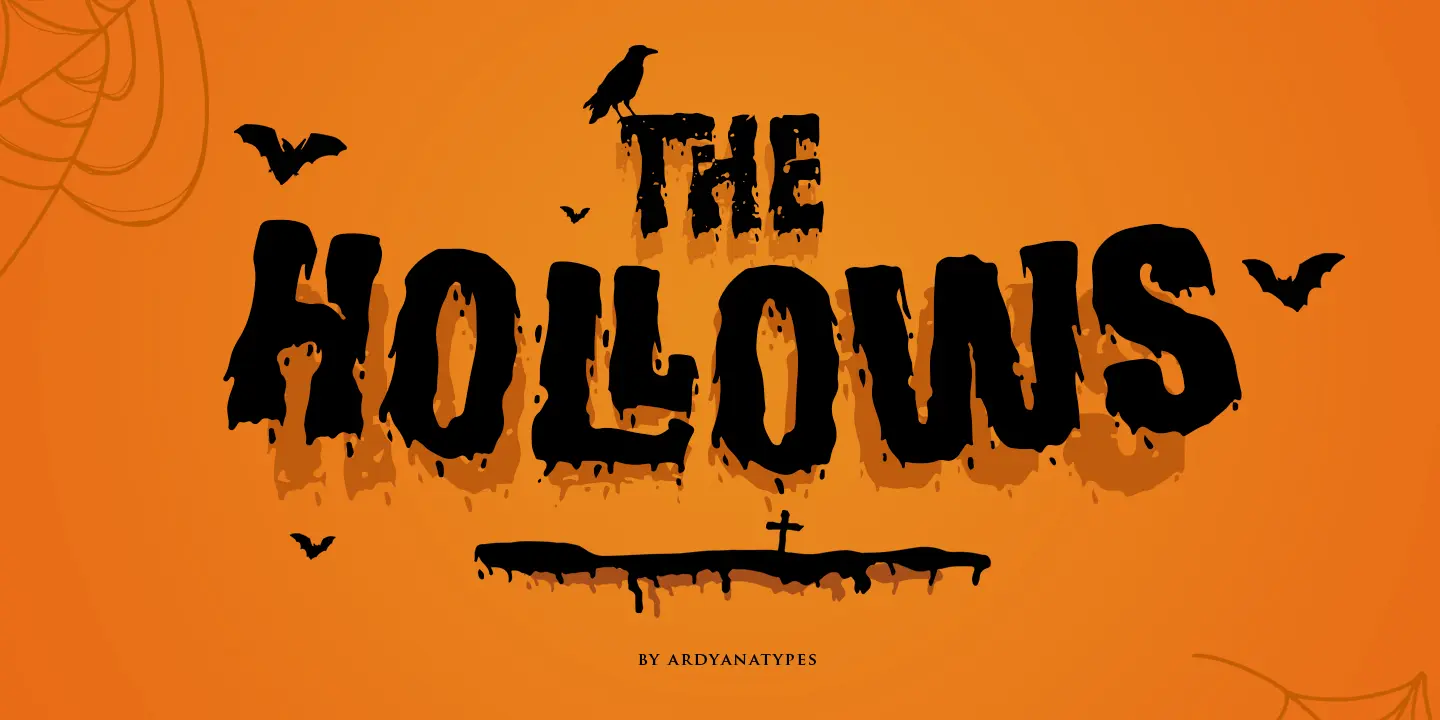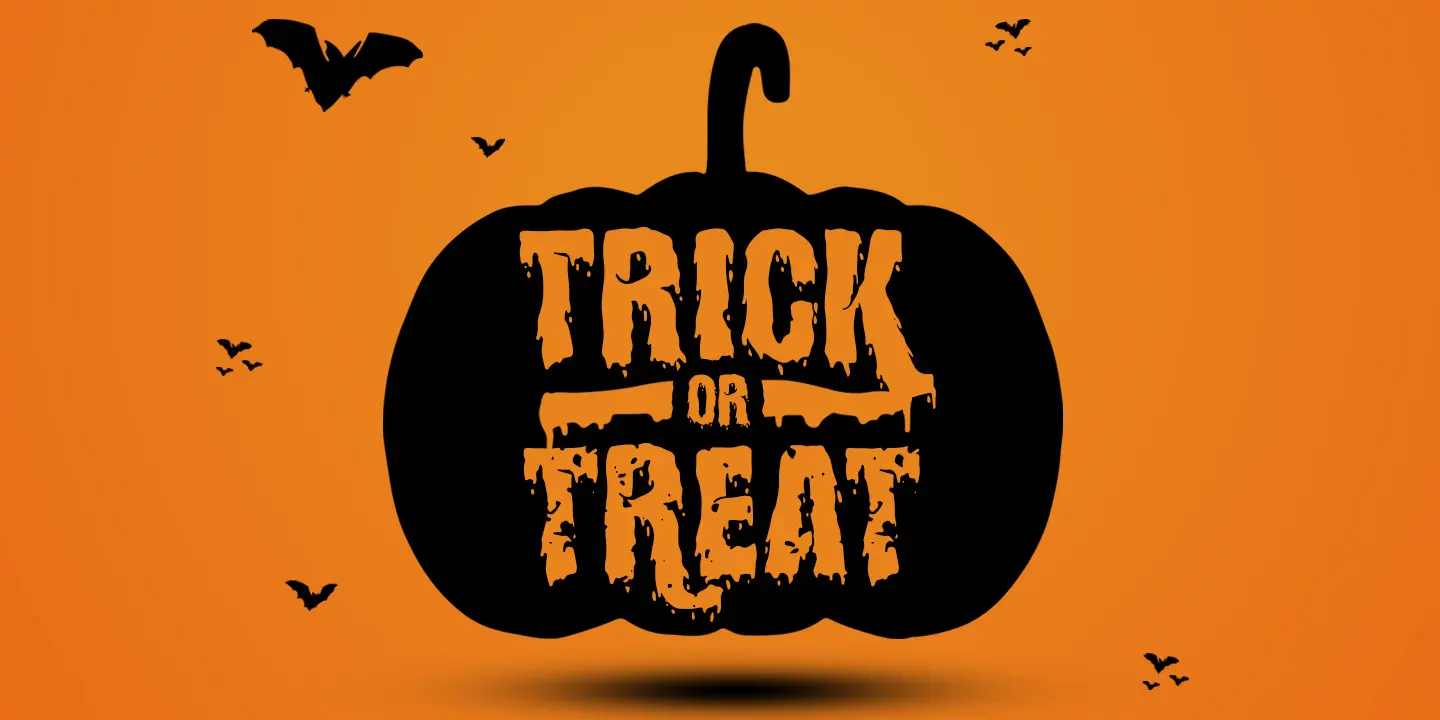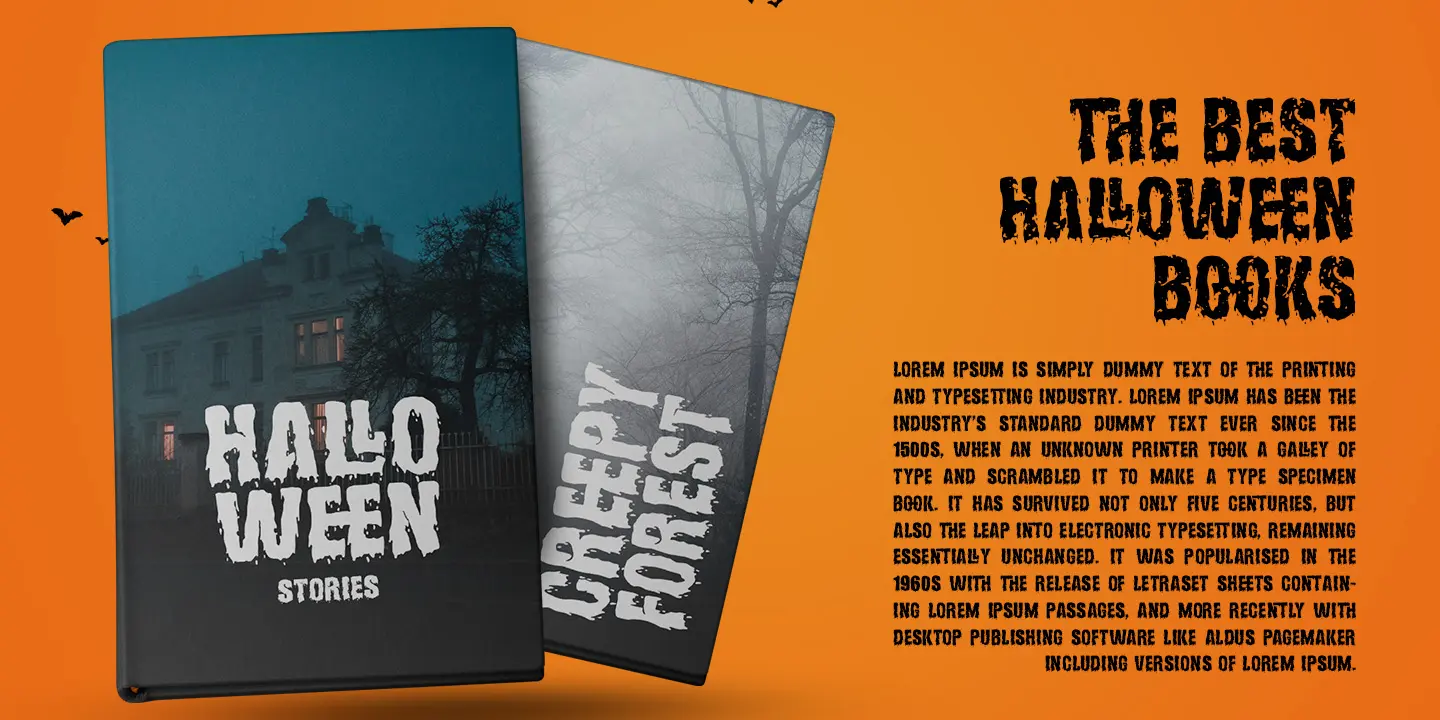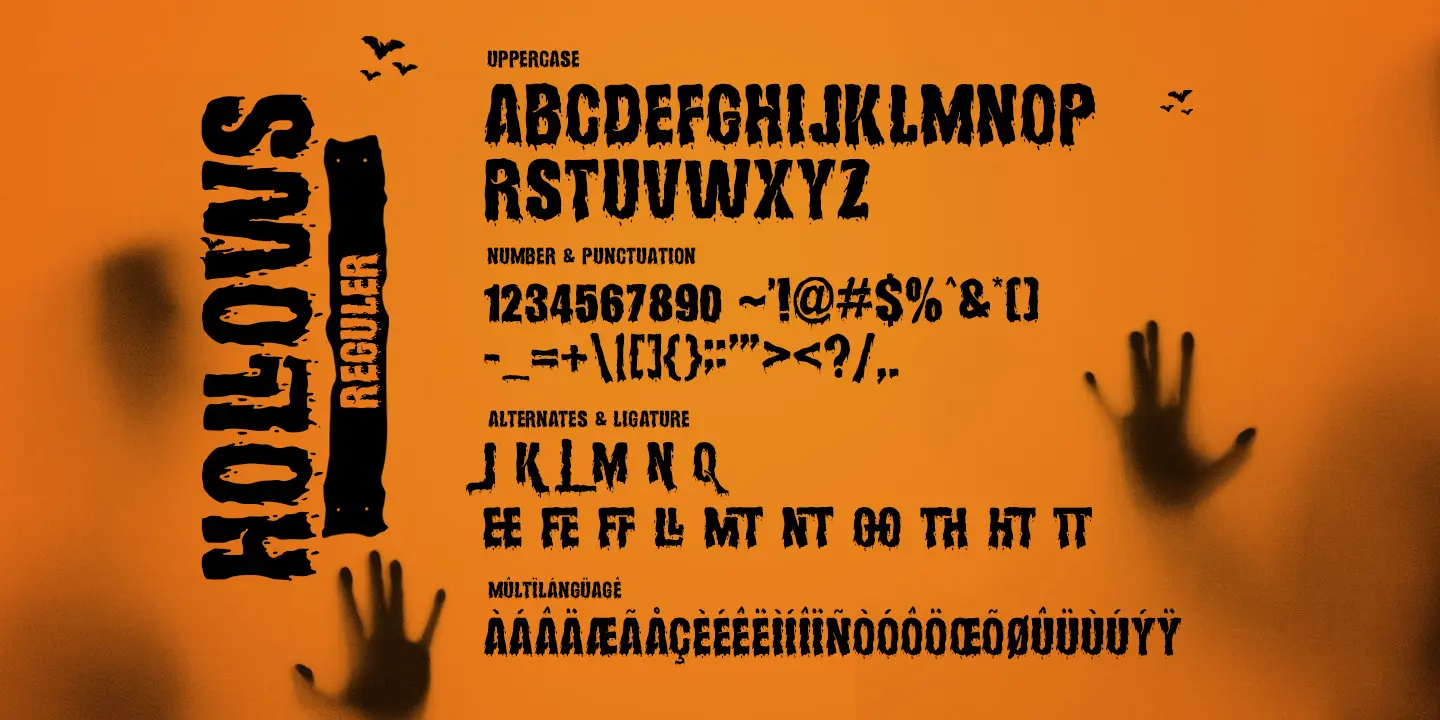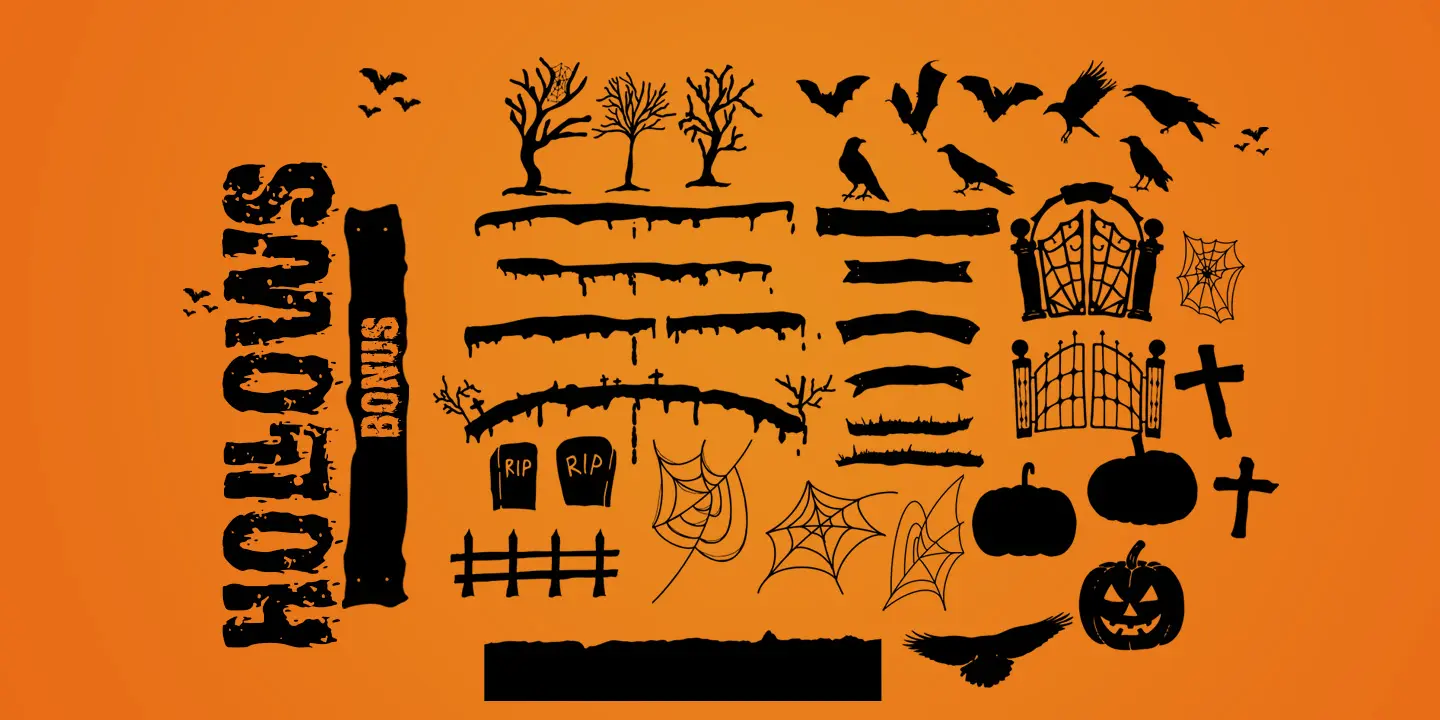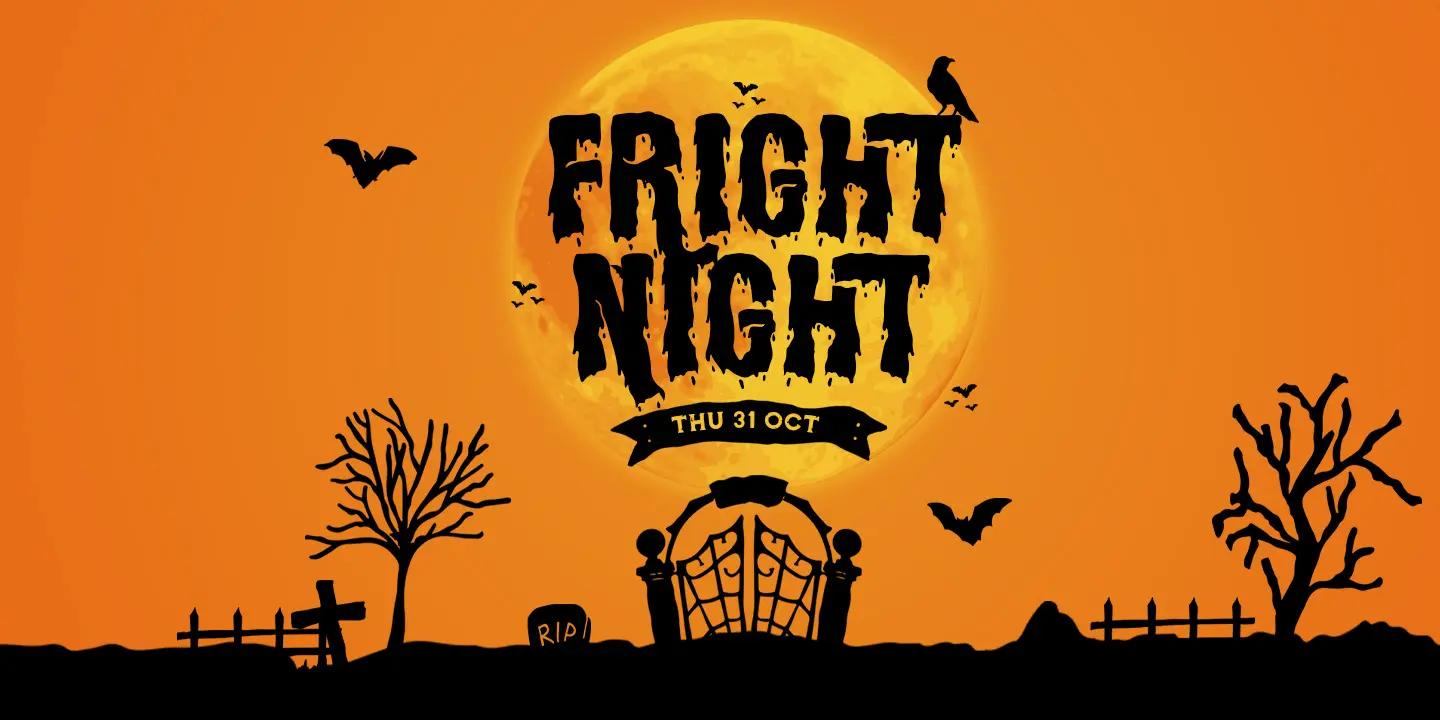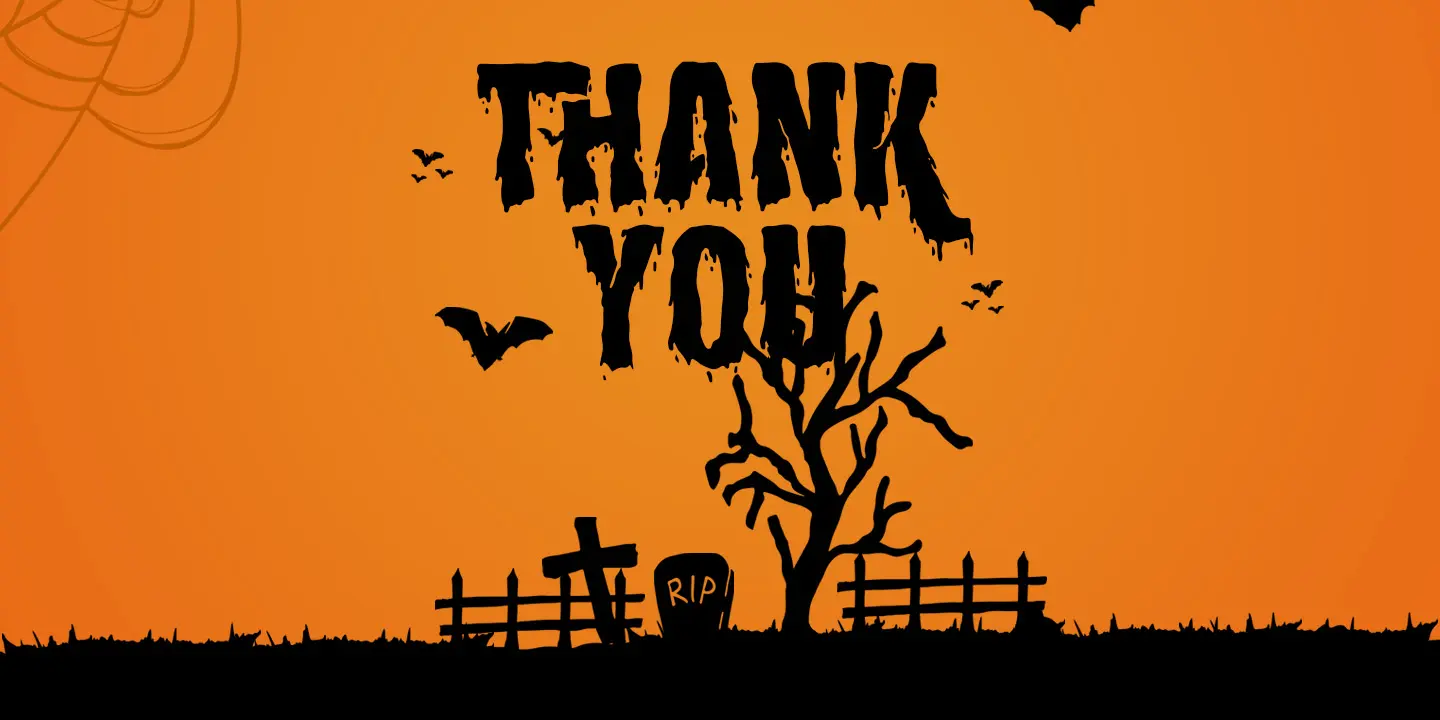
Hollows
2 Styles
The Hollows is a Display font created with a horror and thick impression. Hollows has two different styles, Regular and Rude, each style has several alternatives and Ligature which makes it look more attractive and very easy to use. Hollows is also equipped with mutlilanguage for use in various languages. Hollows gives a horror and scary atmosphere to make your Halloween theme more attractive, and is perfect for use on book covers, movie titles, logos and branding, advertisements, posters, and other product designs.
• Ee Ee
• EE EE
• FE FE
• Fe Fe
• FF FF
• Ff Ff
• HT HT
• Ht Ht
• Ll Ll
• LL LL
• MT MT
• Mt Mt
• NT NT
• Nt Nt
• Oo Oo
• OO OO
• Tt Tt
• TT TT
• Th Th
• TH TH
• eE eE
• ee ee
• fF fF
• fE fE
• fe fe
• hT hT
• ht ht
• lL lL
• mt mt
• mT mT
• nT nT
• nt nt
• oo oo
• oO oO
• th th
• tH tH
• tT tT